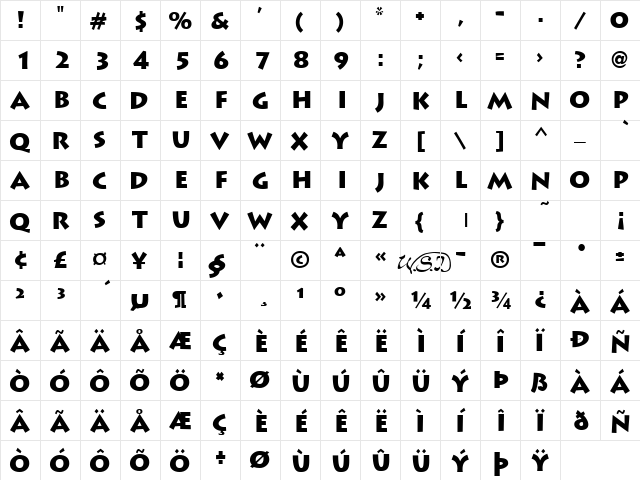
Liddie Black Regular
Design Context for Liddie Black Typeface
Liddie Black takes a measured approach to typography — its balanced proportions and neutral character make it a reliable workhorse for both digital and print work.
Pro Tip: Use Liddie Black in both headline and body roles to test its range before committing to a single application.